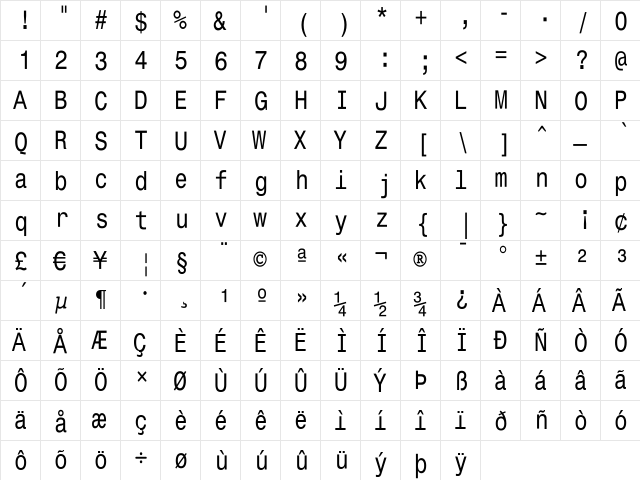
MonospaceTypewriter Regular
Design Context for MonospaceTypewriter Typeface
MonospaceTypewriter brings the precise, column-aligned rhythm of monospaced typography to designs that value technical clarity and systematic order.
Pro Tip: Use MonospaceTypewriter with slightly increased line-height for extended reading — fixed-width spacing can feel dense in longer passages without extra breathing room.